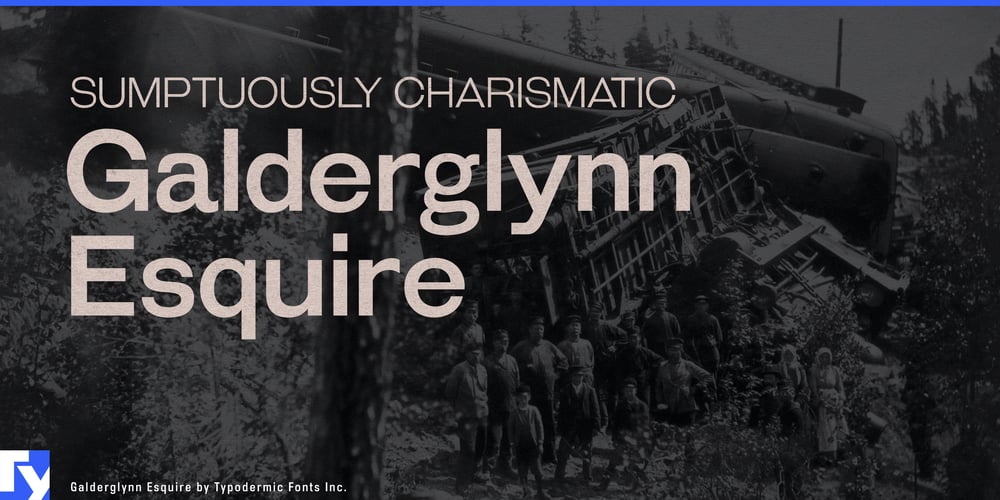
Galderglynn Esquire Font Family was designed by Ray Larabie and published by Typodermic. Galderglynn Esquire contains 14 styles and family package options. Step into the charming chaos of Galderglynn Esquire, a typeface that dances on the fine line between historical homage and typographic rebellion. This isn’t just another sans-serif revival—it’s a whimsical concoction that captures the spirit of 1800s typography while gleefully breaking all the rules.Galderglynn Esquire revels in its inconsistencies. Each character seems to have a mind of its own, shifting and jiving across the page with delightful unpredictability. It’s as if a master typesetter from the 19th century decided to throw caution to the wind and let their personality shine through every letterform. But don’t let its playful demeanor fool you—Galderglynn Esquire is a workhorse in disguise. With a smorgasbord of numeral styles (standard, monospaced, old-style, inferior, and superior), it’s ready to tackle any typographic challenge you throw its way. The seven weights and accompanying italics offer a playground of possibilities for designers who dare to think differently.This typeface doesn’t just cross linguistic borders—it leaps over them with gusto. Supporting an impressive array of Latin-based European and some Cyrillic-based writing systems, Galderglynn Esquire ensures your message maintains its quirky charm whether you’re writing in Albanian or Zulu. Choose Galderglynn Esquire when you need typography that doesn’t just speak—it sings, dances, and occasionally trips over its own feet in the most endearing way possible. It’s perfect for projects that demand both historical authenticity and a touch of the unexpected. And if you ever need to rein in its exuberance, its well-behaved sibling, Galderglynn 1884, is just a click away.Galderglynn Esquire is a time machine with a sense of humor. Inject some joyful irreverence into your designs and let your typography tell a story all its own. Because in a world of conformity, sometimes the best way to stand out is to let your letters dance to their own beat.